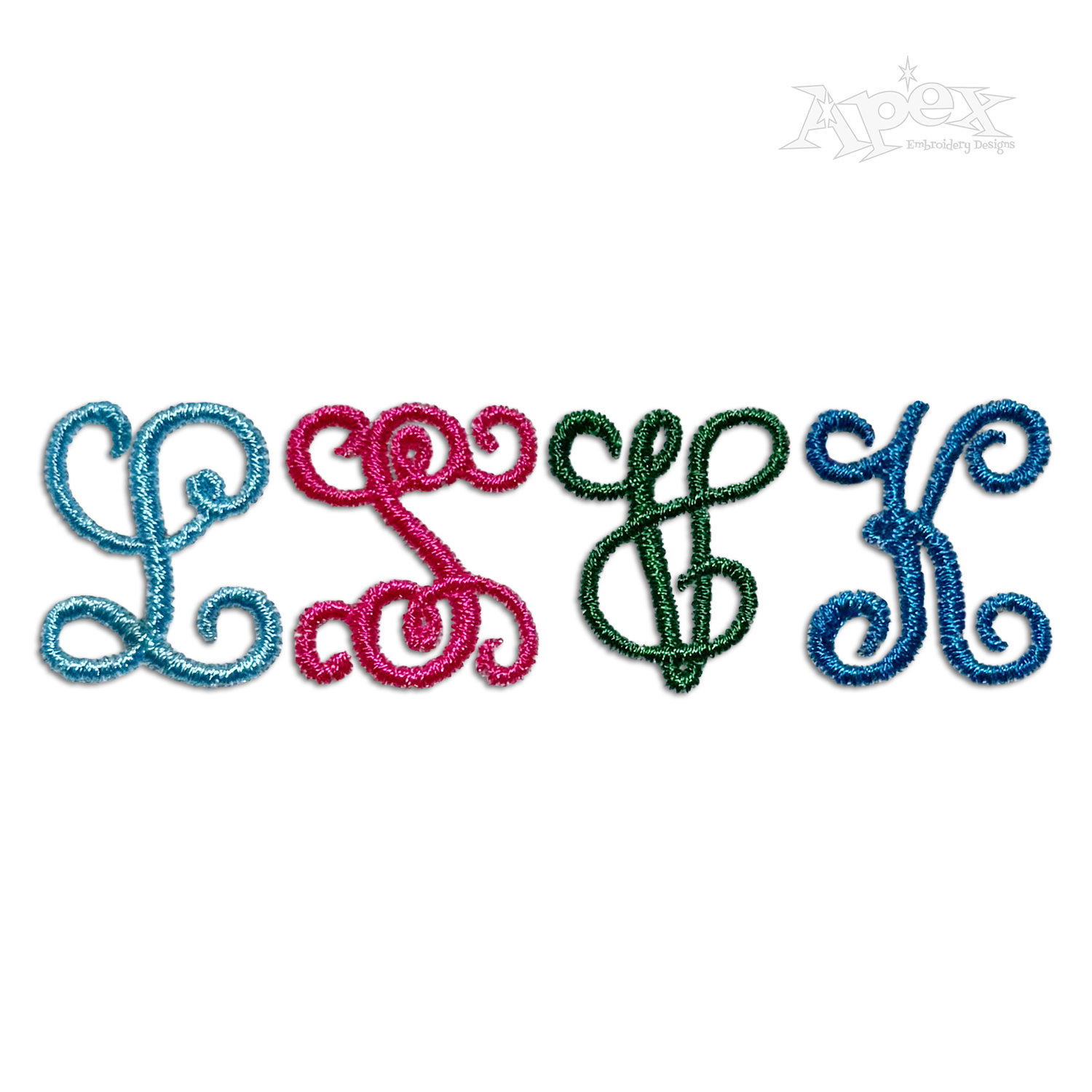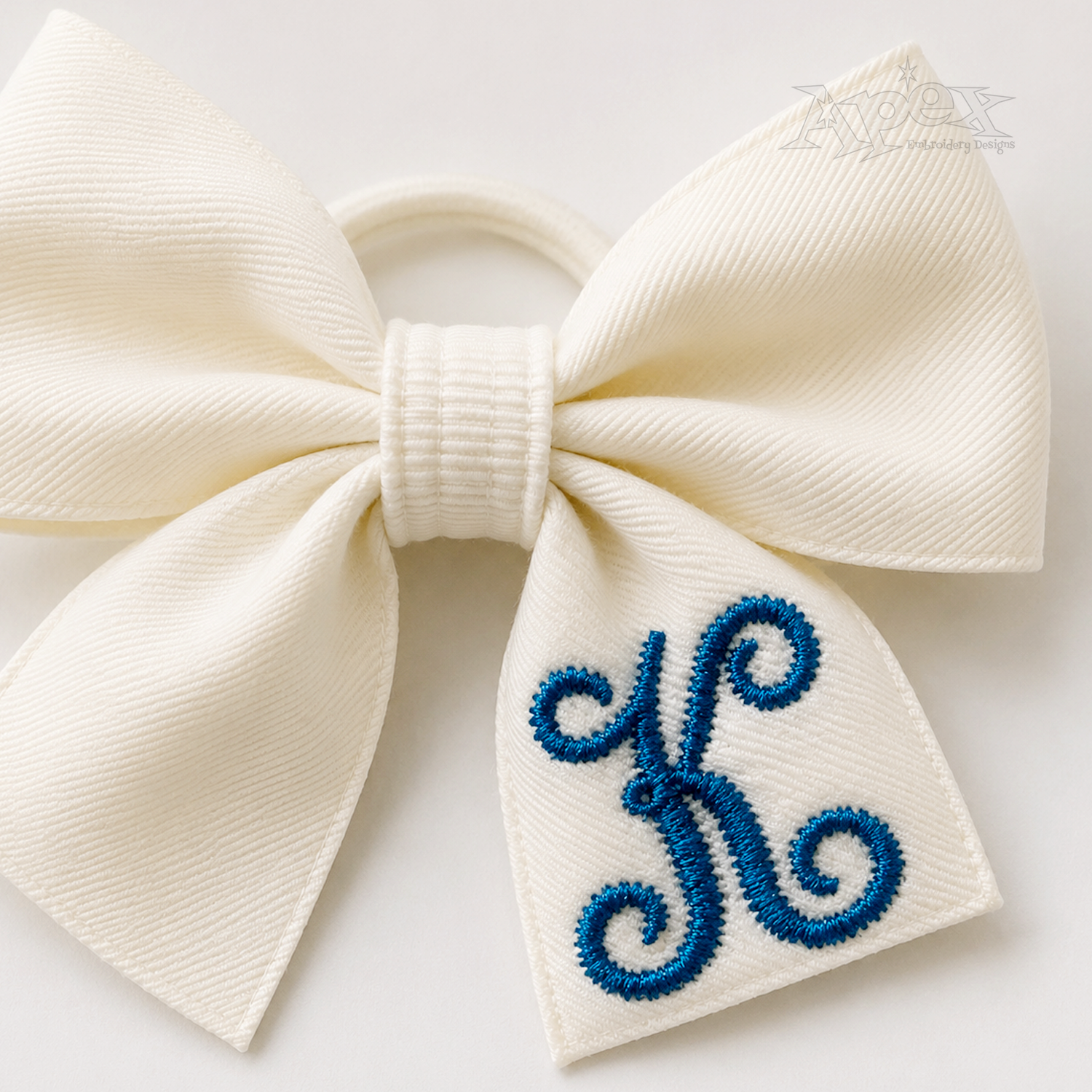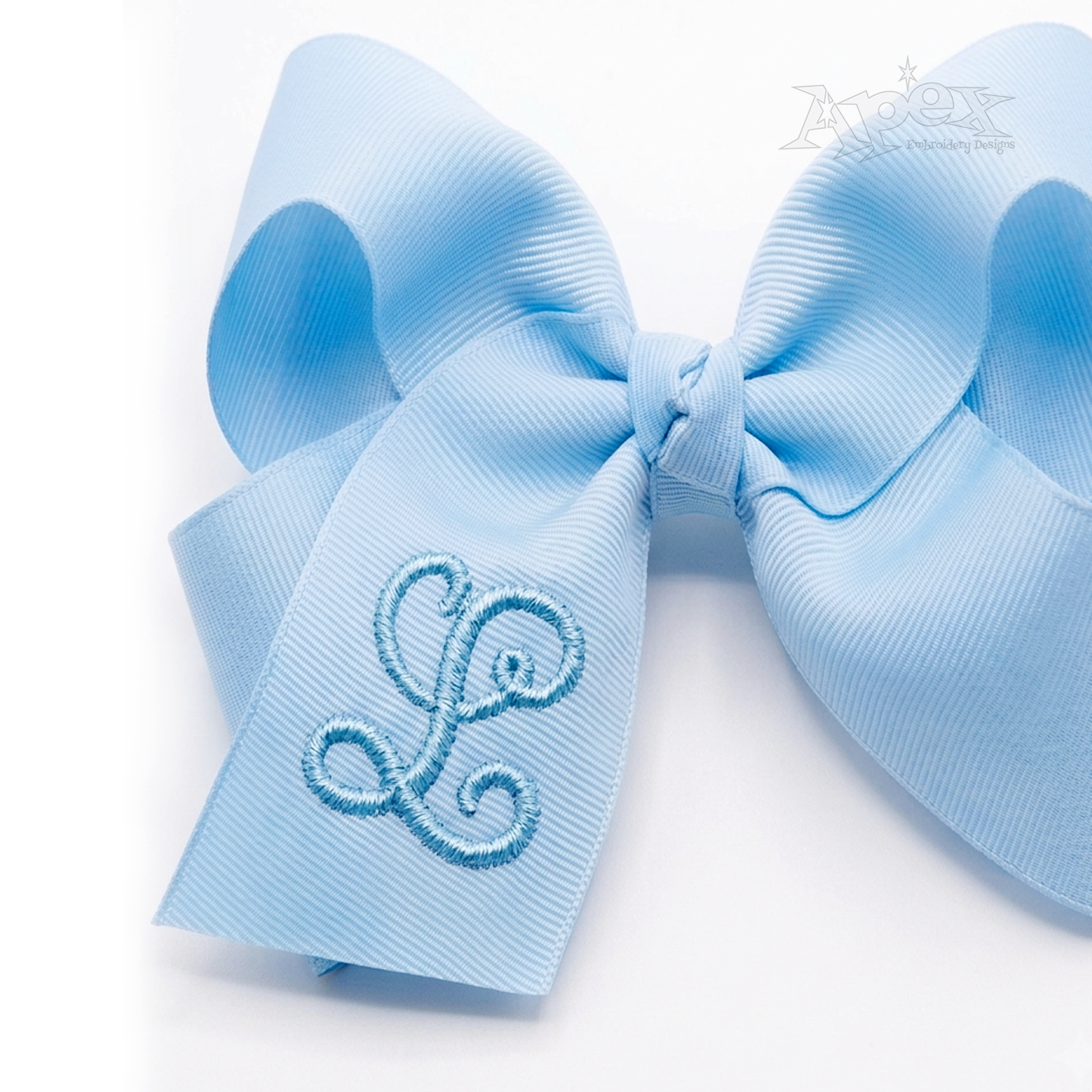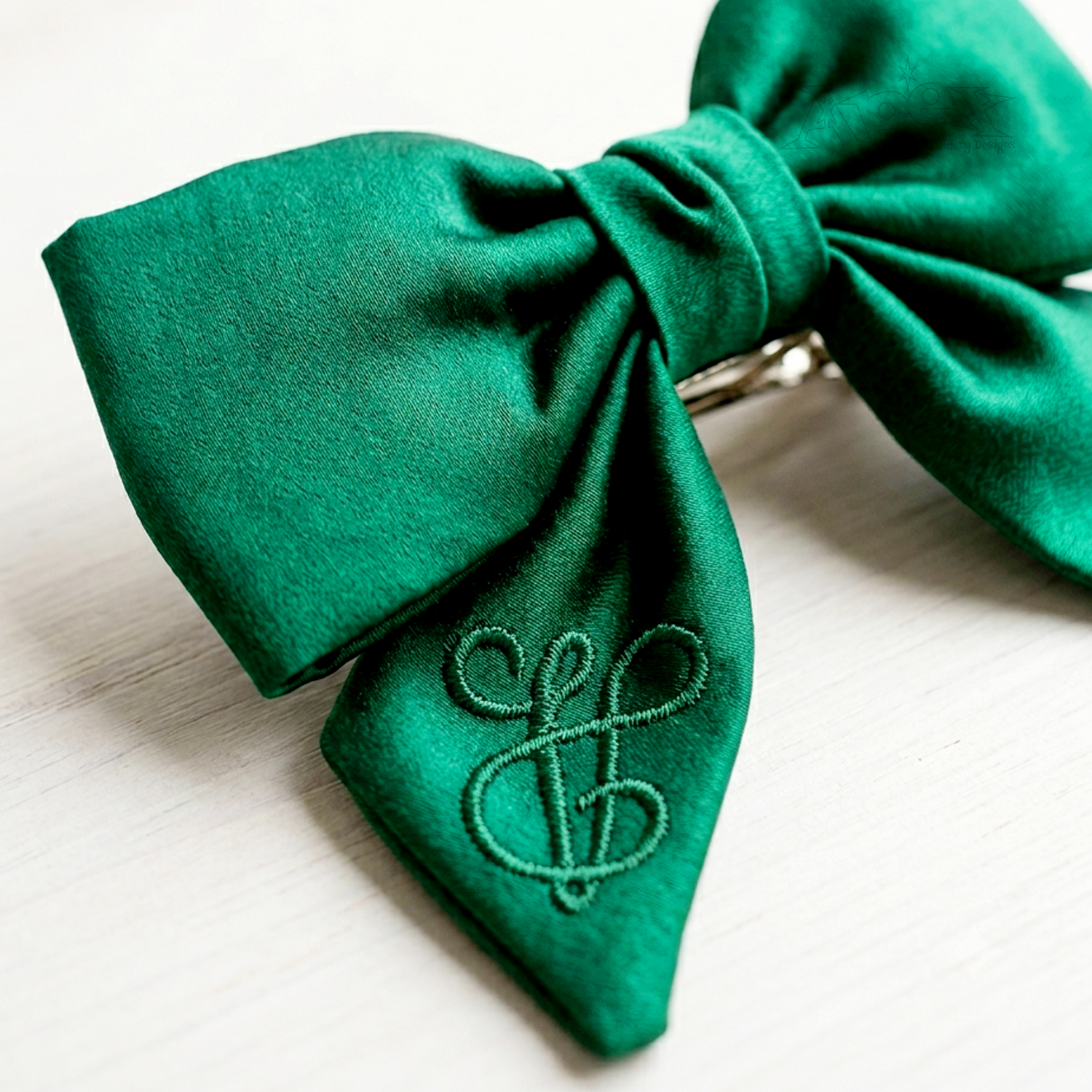
Vine Interlocking Mini Embroidery Font
There is a quiet, breathtaking sorcery in miniature embroidery—the art of coaxing flowing botanical flourishes into spaces scarcely larger than a pearl button. When drafting the Vine Interlocking Mini Embroidery Font, our digitizing studio set out to solve one of machine embroidery’s most delicate dilemmas: preserving the opulent grandeur of a classic three-letter vine monogram at a whisper-fine scale. Each winding stem, sweeping serif, and intertwining curve has been re-engineered specifically for petite canvases, translating grand antique script into jewel-like stitches that nestle together seamlessly without crowding, bulk, or thread buildup. The result is pure understated elegance, evocative of bespoke trousseaus, romantic garden ceremonies, and the timeless artistry of vintage heirloom keepsakes.
Engineered with meticulous stitch planning for micro-scale precision, this set includes three exquisitely scaled heights tailored for narrow items and delicate fabric surfaces:
- 0.5 inch (1/2") – An ultra-dainty monogram designed for slender ribbons, delicate cuffs, and micro-scale accents.
- 0.75 inch (3/4") – The quintessential mini size, striking a flawless balance between legibility and delicate botanical flourish.
- 0.85 inch – Sized perfectly for hair bow centers, collar points, and petite linen corners where subtle distinction is required.
Project Ideas for Vine Interlocking Mini Embroidery Font
The miniature scale of this interlocking monogram opens up an enchanting world of personalized gifting and heirloom embroidery possibilities:
- Micro Ribbons & Hair Bows: Embellish narrow grosgrain, velvet, or satin ribbons for boutique hair accessories, holiday gift wrappings, or bridal bouquet streamers.
- Heirloom Layettes & Christening Gowns: Stitch tiny, sentimental initials onto heirloom batiste bonnets, christening bibs, and infant day-gowns.
- Luxury Table Linens & Coasters: Accent the tailored corners of linen cocktail napkins, hemstitched bread basket covers, or dinner party placemats.
- Bespoke Menswear & Tailoring: Create subtle, aristocratic accents on French cuffs, button plackets, and bespoke interior jacket labels.
- Bridal Party Keepsakes: Add personalized initials to silk lingerie ribbons, bridal garters, lace handkerchiefs, and velvet ring boxes.
Because micro-lettering demands visual balance, intentional placement allows these delicate curves to shine at their best:
- Narrow Ribbon Tails: Center the monogram running vertically along the length of a ribbon tail, leaving ample tail drape beneath the final flourish.
- Shirt Cuffs & Sleeve Edges: Position the monogram centrally along the top fold of a cuff, or angled 45 degrees toward the wrist for a tailored, understated signature.
- Collar Points: Angle the monogram nestled into the outer corner of a Peter Pan or structured shirt collar, maintaining a minimum 1/4-inch clearance from the seam edge.
- Napkin Diagonal Corners: Align the interlocking monogram 1.5 inches upward from the hemmed diagonal corner of cocktail linens for a chic, high-end bistro finish.
Vine Interlocking Mini Embroidery Font Craft & Letterform Details
Digitizing small-scale embroidery is a masterclass in tension and proportion. Standard embroidery letters, when scaled down, quickly turn into rigid, unreadable knots of thread. For the Vine Interlocking Mini Embroidery Font, our digitizer built every glyph from the ground up, specifically tuning stitch physics for micro dimensions.
The column widths are carefully calibrated to allow lustrous rayon and polyester threads to lay flat in smooth, unbroken satin stitches. Where the delicate leaf-inspired flourishes and vine-like stems overlap, density has been strategically thinned and underlays minimized to a single ultra-fine traveling stitch. This deliberate structural discipline prevents needle deflection and fabric puckering while ensuring that the intertwining letters remain distinct, light, and wonderfully legible. The serifs taper into graceful, whisper-soft needle penetrations that glide effortlessly through fine linens, batistes, and ribbons, giving your needlework the refined grace of hand-embroidered bespoke calligraphy.